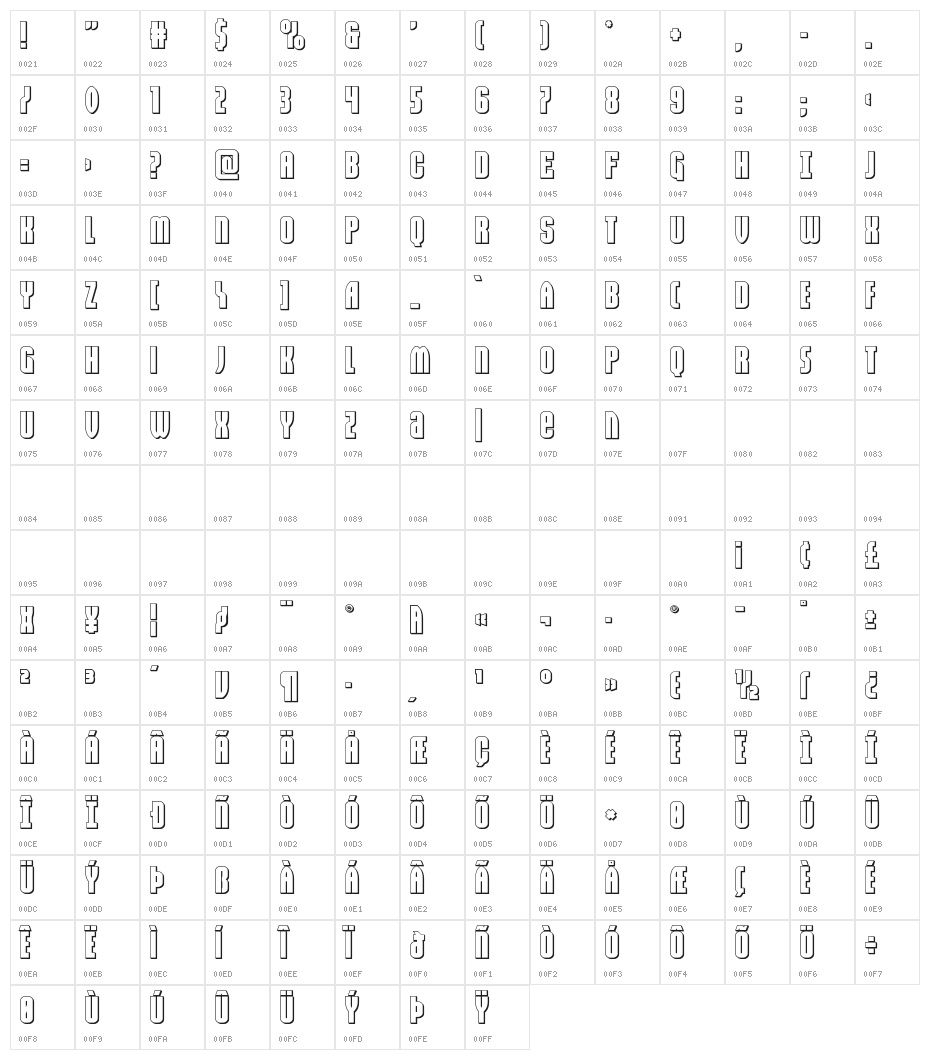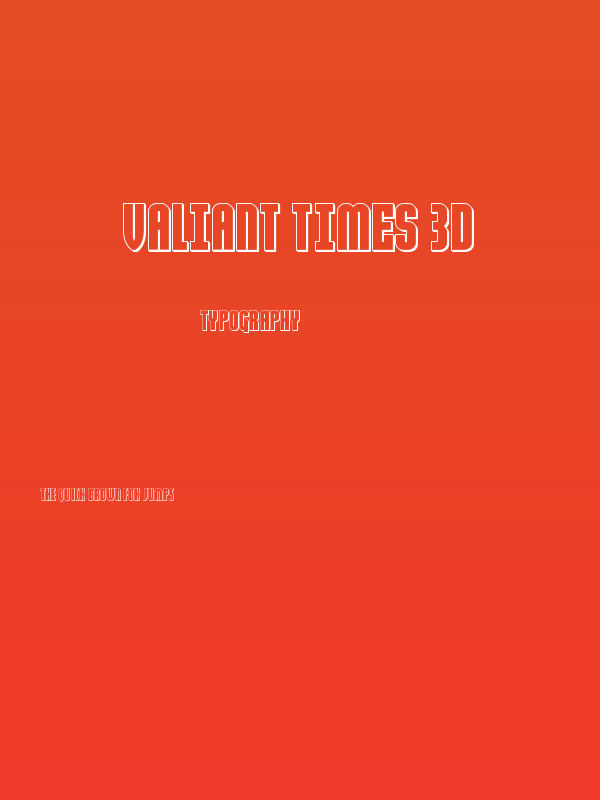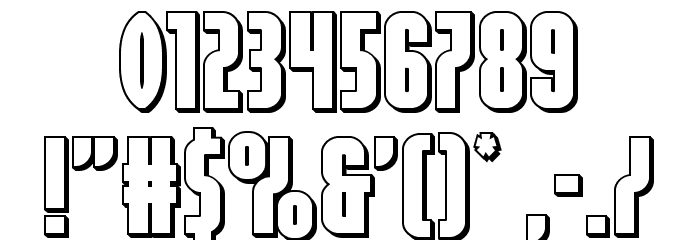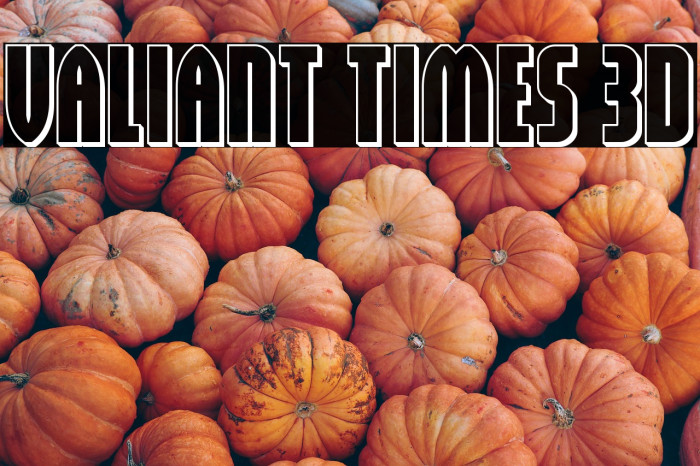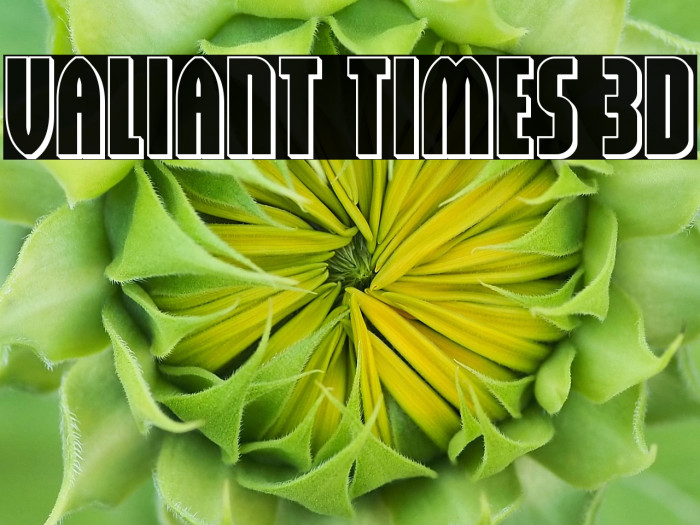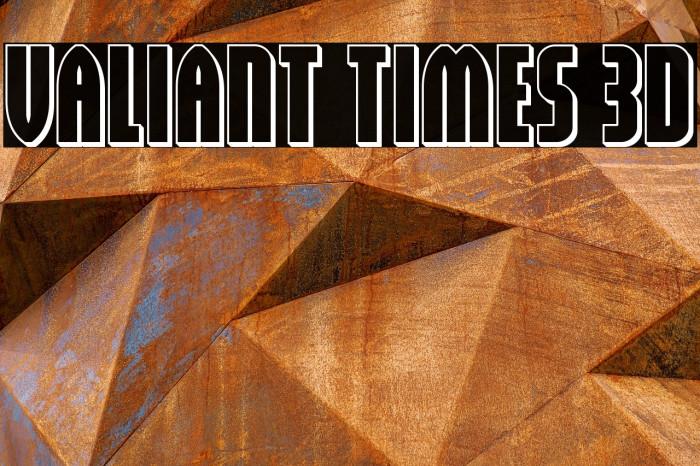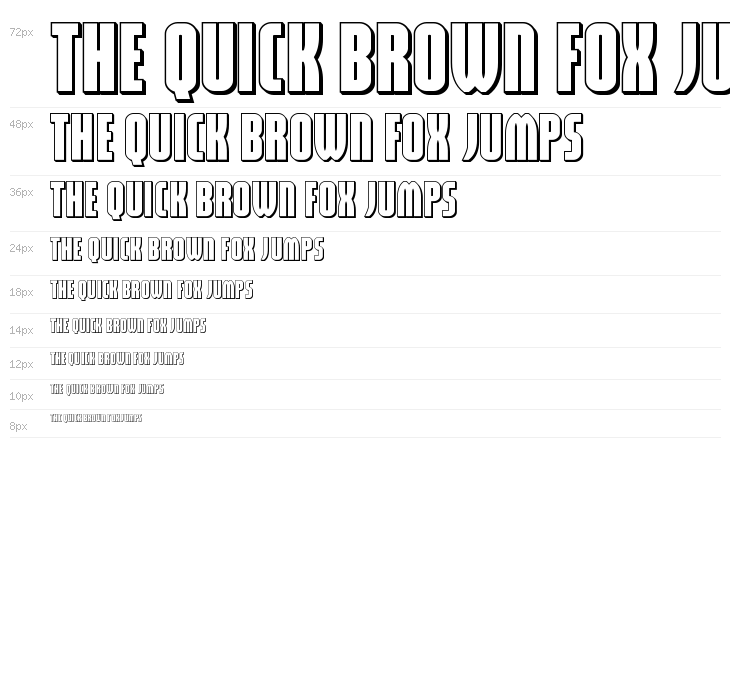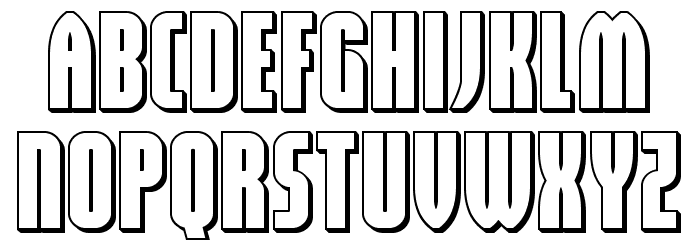
Valiant Times 3D Font
Valiant Times 3D Description
This font features a bold, three-dimensional appearance with a strong, impactful presence. The characters are outlined, creating a shadow effect that gives them depth and a sense of solidity. The uppercase letters are uniform in height, with a geometric structure that emphasizes straight lines and sharp angles. The numbers and special characters maintain this consistent style, ensuring a cohesive look across all elements. This font is designed to stand out, making it ideal for attention-grabbing headlines or titles. Its boldness and 3D effect make it particularly suitable for projects that require a modern and dynamic aesthetic.
| Proposed Projects | Ideal for posters, logos, video game titles, and any project needing a striking, modern look. |